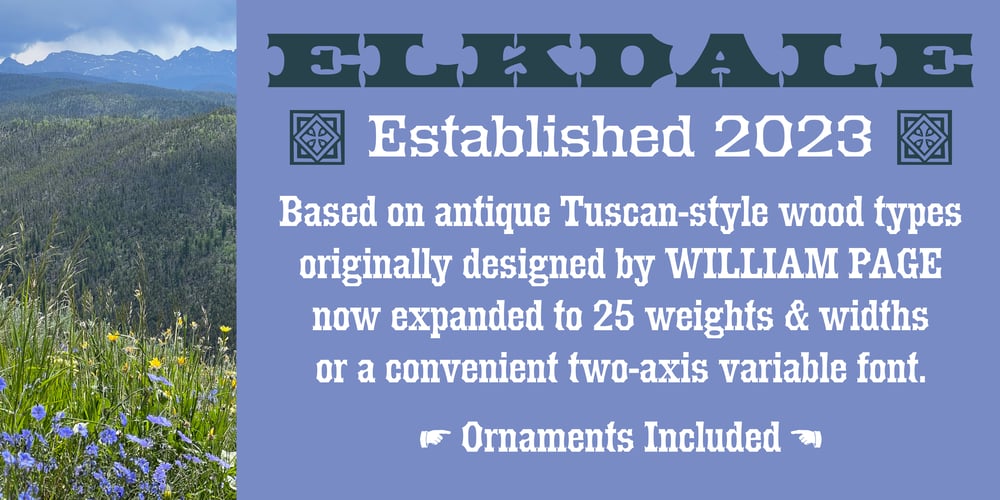
Elkdale
Elkdale font
Elkdale Font Family was designed by Steve Matteson and published by Matteson Typographics. Elkdale contains 25 styles and family package options. Elkdale is an Antique Tuscan typeface based on a series of wood types designed in the 19th century. Elkdale exudes the impactful ornamental designs found in posters, newspapers and signage of the day. With its wide complement of weights and widths, Elkdale should fill any space with attention-grabbing delight.